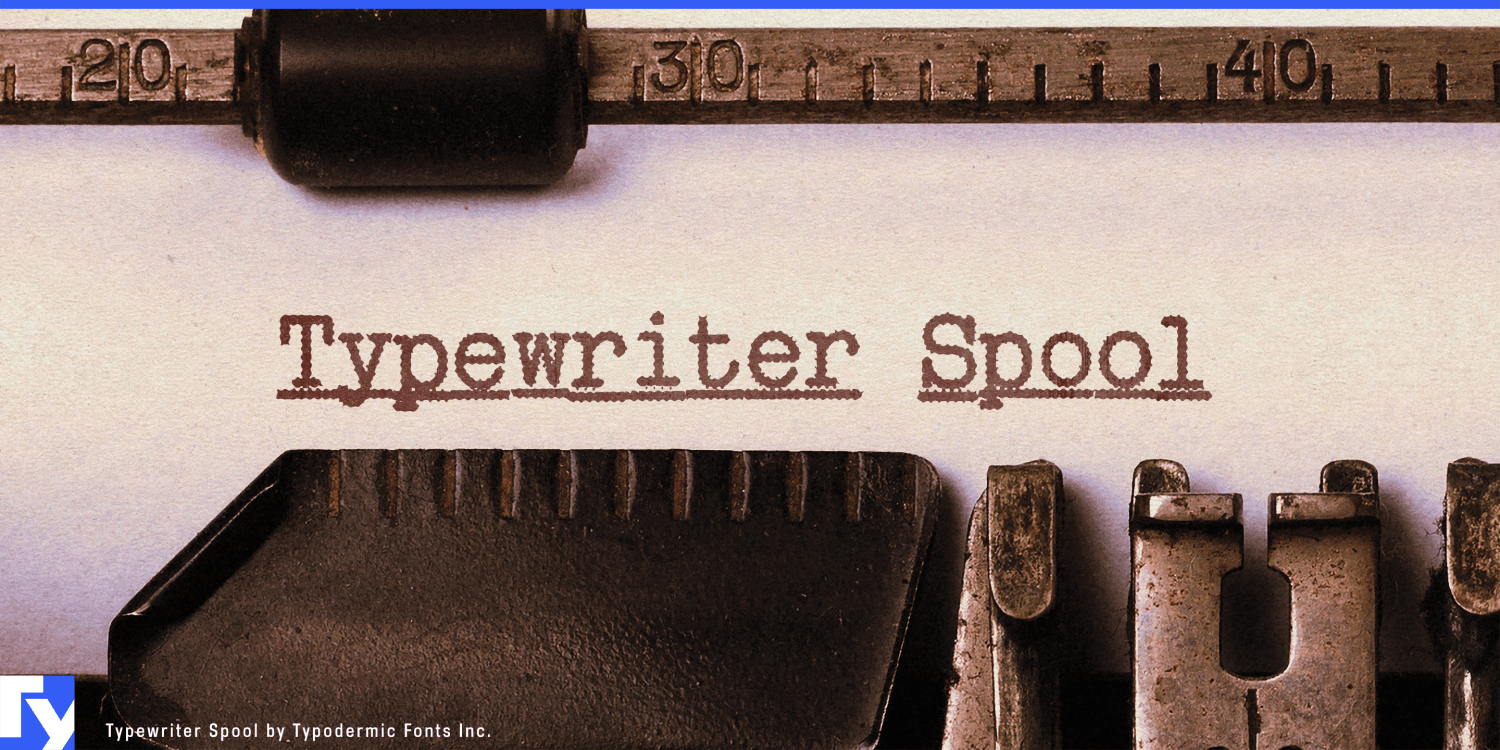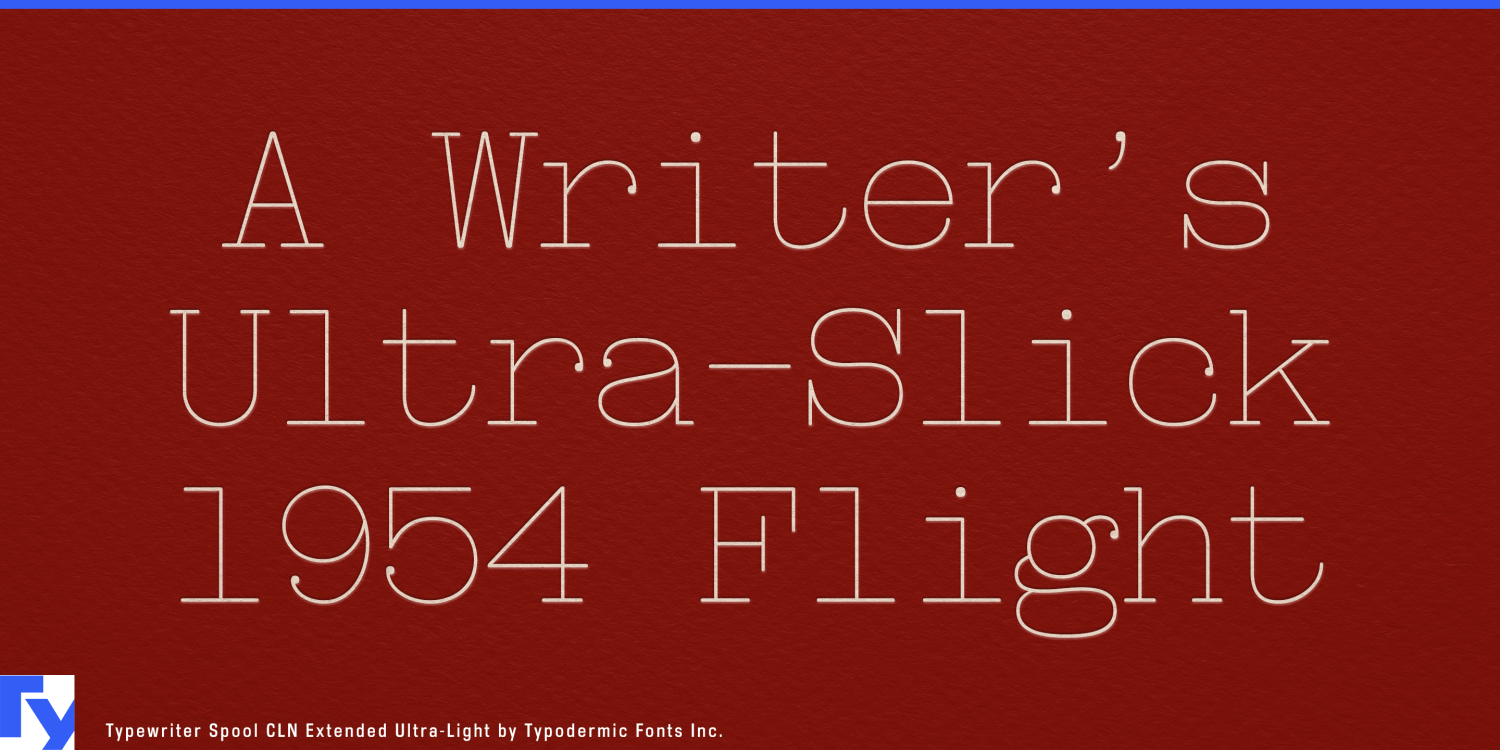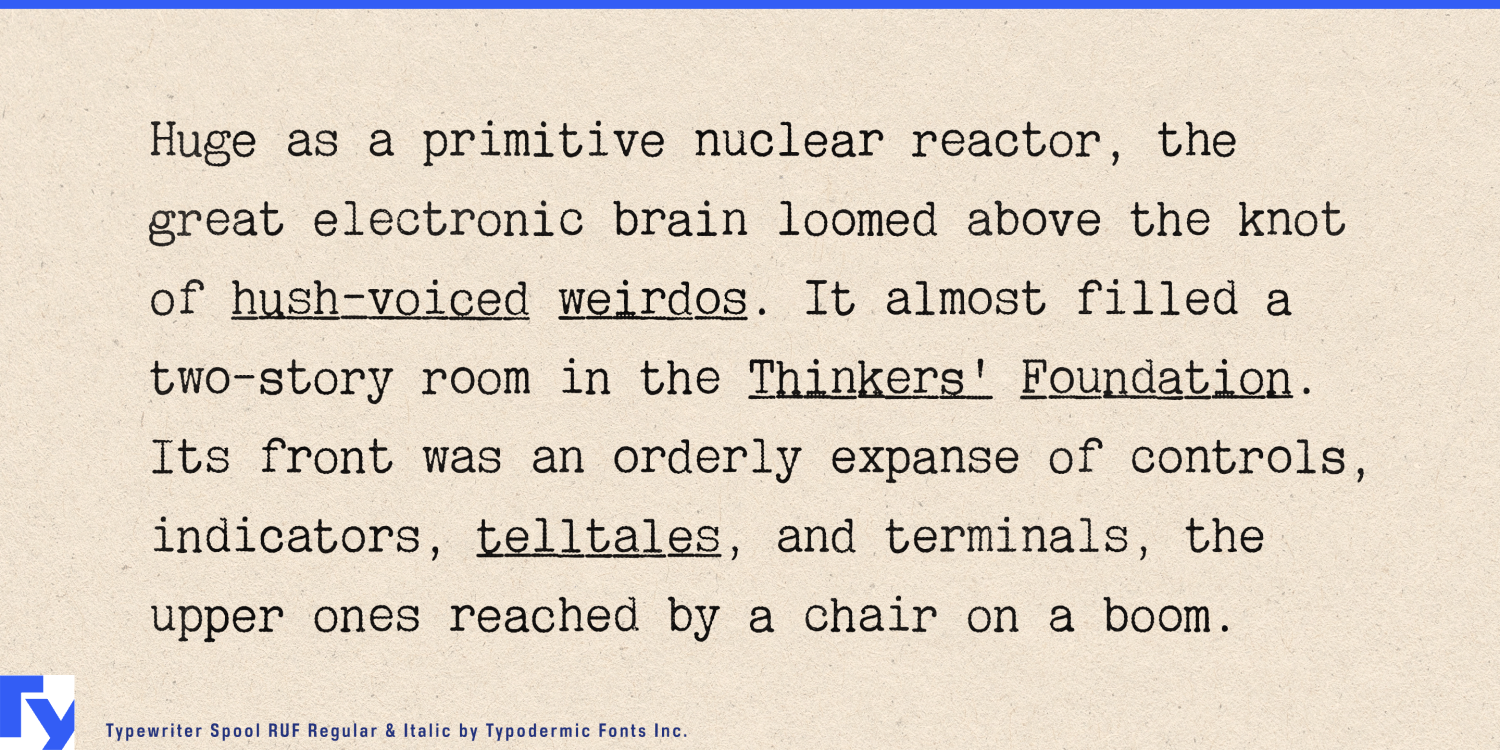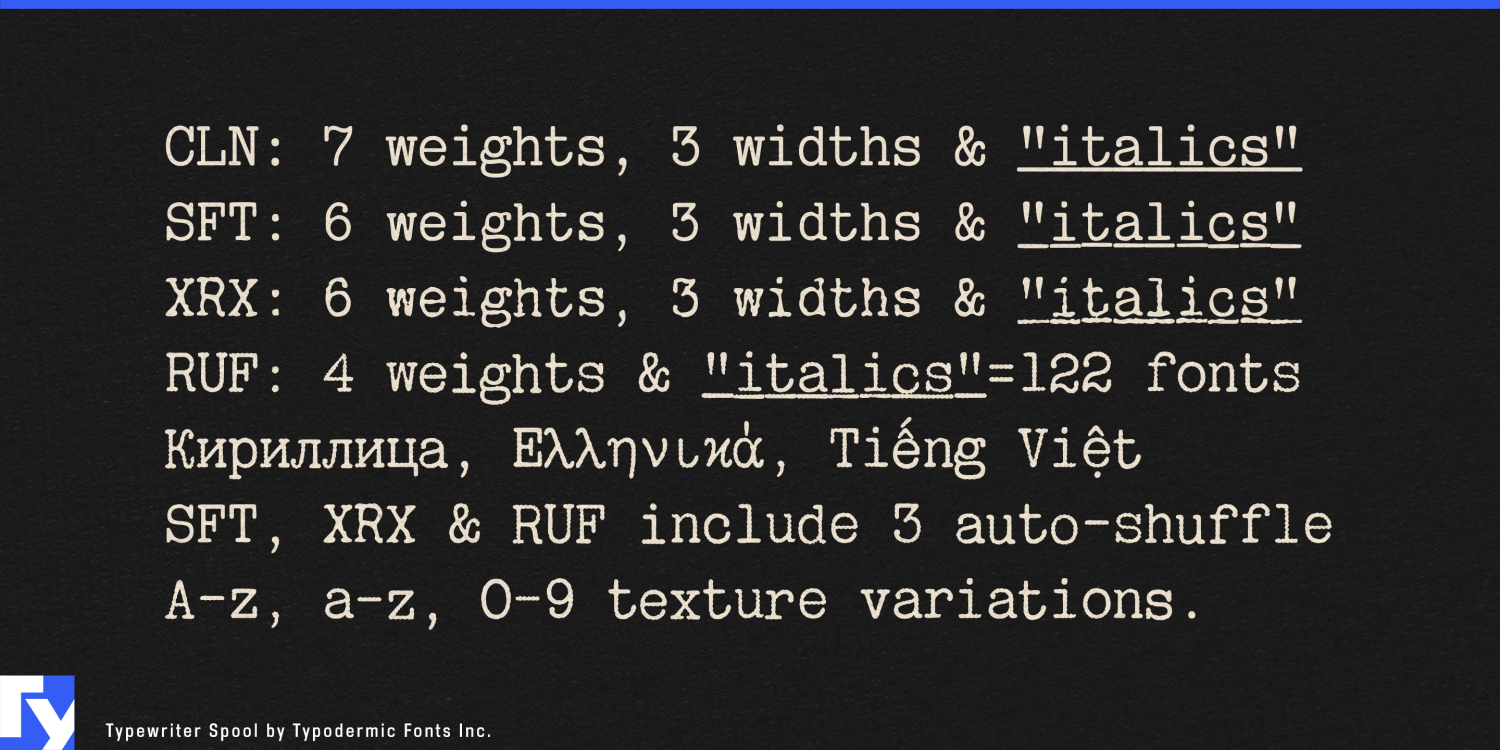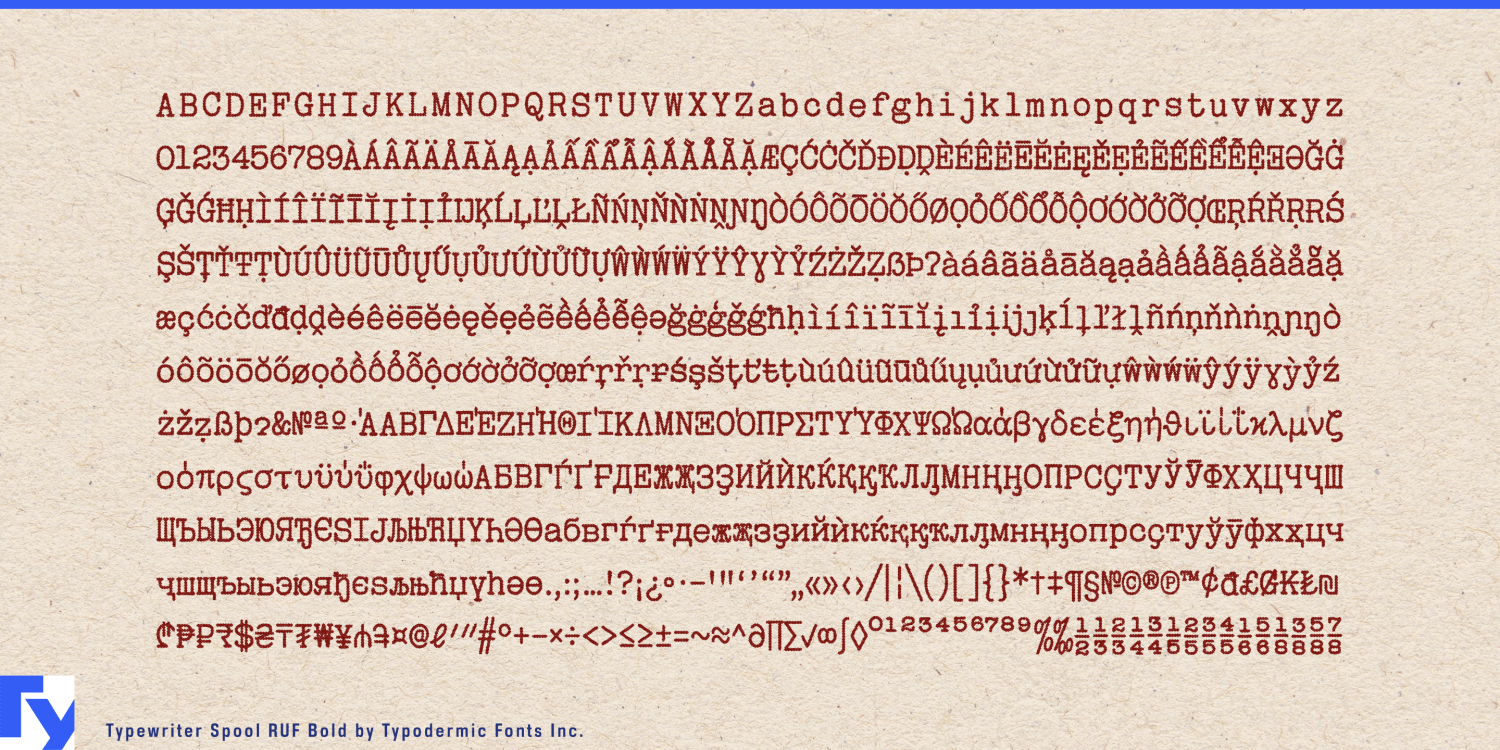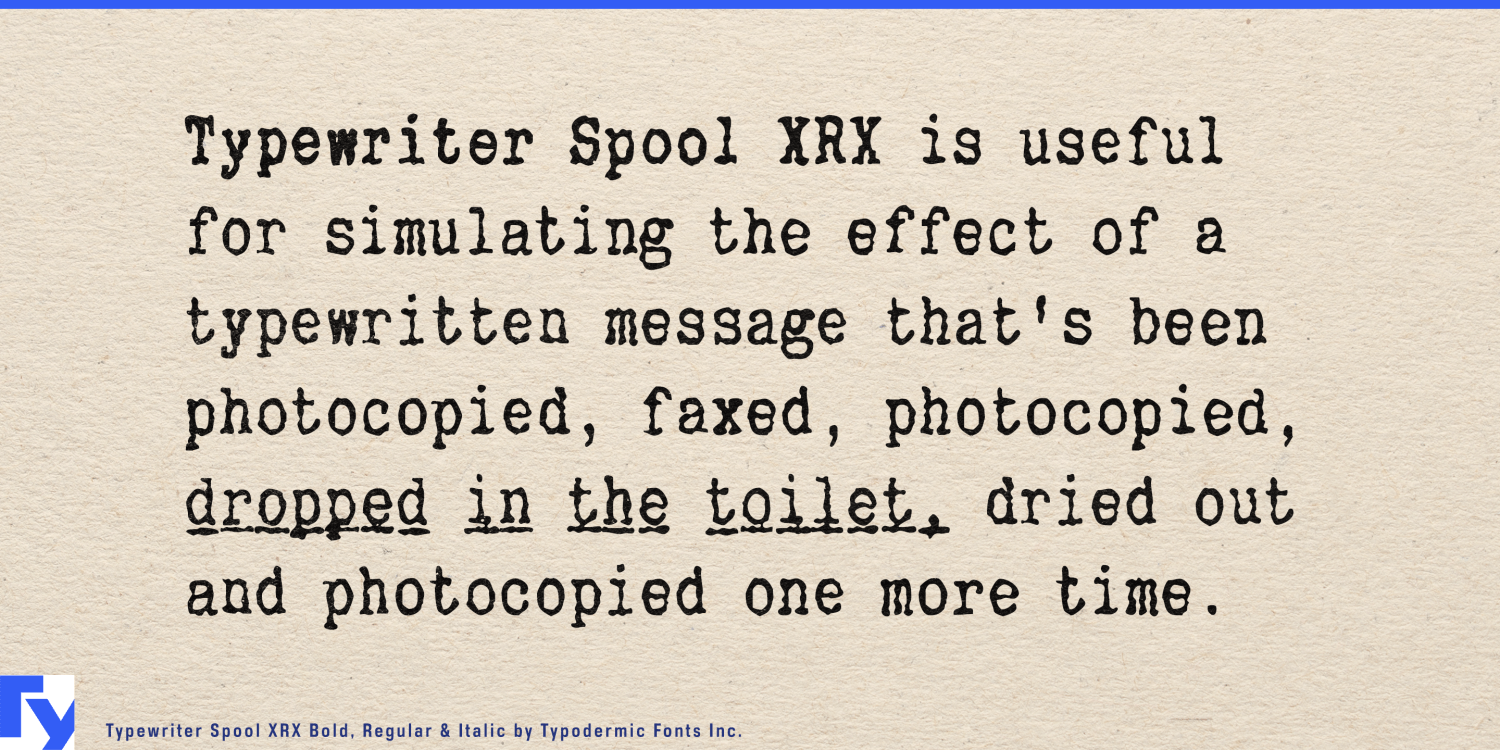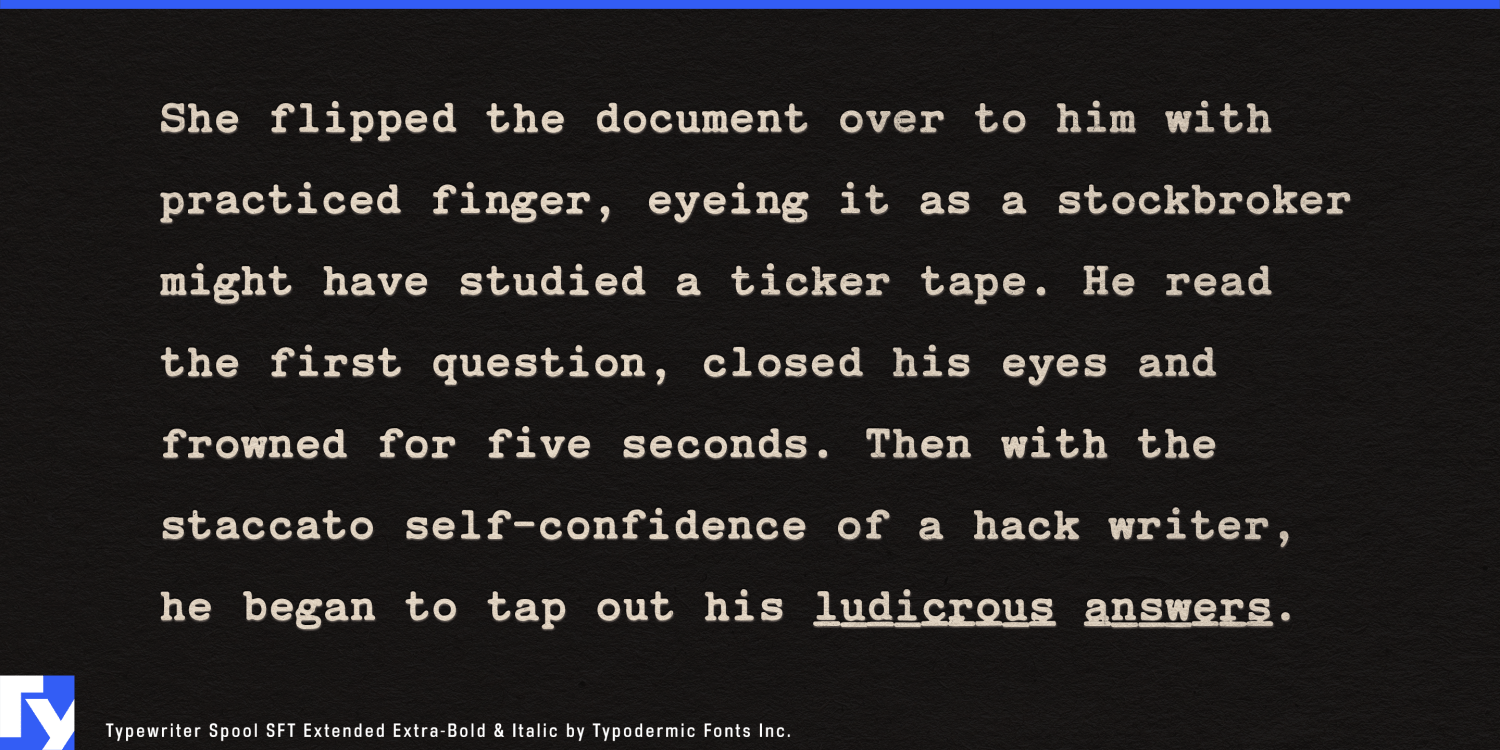
Typewriter Spool
Designers rarely know what the next typewriter brief will demand. One client needs a pristine office memo; another wants a slightly uneven personal letter. Later it may be a narrow form, a battered report, a document several photocopy generations removed from the original, or an archival exhibit where newly typeset material has to sit convincingly beside scans.
Typewriter Spool was built for that uncertainty. Rather than offering one idealized typewriter texture, it explores a wide range of document conditions through one coordinated family. CLN provides the cleanest and most controlled setting; SFT introduces restrained mechanical irregularity; XRX moves into copied and transmitted material; RUF pushes further into worn ribbon texture, misalignment, and physical degradation.
That range makes Typewriter Spool useful for agencies, production studios, exhibition designers, editorial departments, and in-house creative teams whose typewriter needs change from project to project. A branding agency might use it for a founder’s letter in an anniversary campaign, then return to it for limited-edition packaging, an archival quotation, or a heritage exhibition.
Film, television, and documentary production can take the idea further. A single project may need correspondence, interview transcripts, evidence sheets, intelligence files, photocopied reports, labels, and enlarged document excerpts. Different treatments can suggest different stages in a document’s life while keeping the underlying typography related. A clean original and a degraded copy can look like versions of the same source rather than props assembled from unrelated typewriter fonts.
Museums, historical exhibitions, investigative publishing, and documentary editorial projects face similar problems when archival material has to coexist with newly designed information. Typewriter Spool can distinguish clean transcripts, reconstructed quotations, copied records, witness statements, correspondence, and worn source material without abandoning a consistent documentary vocabulary.
Its broad support for Latin-based languages, Greek, Cyrillic, and Vietnamese also helps internationally active studios keep the same system as campaigns and productions expand across markets.
Typewriter Spool is less a single typewriter look than a working library of typewritten conditions: clean, imperfect, copied, transmitted, worn, narrow, broad, emphasized, and multilingual. For designers who cannot predict what the next typewriter brief will look like, that range is the point.